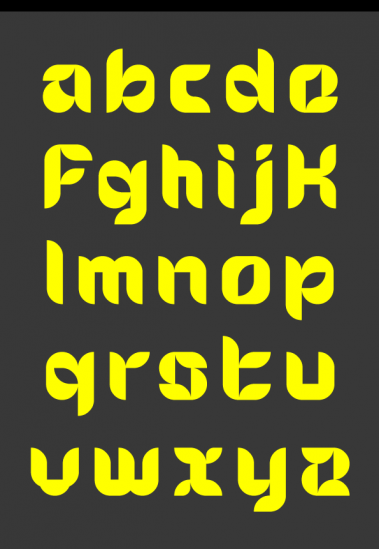
I don't know what's wrong with .png samples: a black line/stripe appears once uploaded.
@igorrossi:
Well, imo it's looking more stylish ;].
Only 8 (four stars) for font, because of 26 characters... You should have made more, maybe digits?
@neoqueto: Or not. I'm not sure yet I want to turn this stylistic composition into a whole font; therefore, I'm not sure either it deserves more than four stars, so thank you for rating & commenting. By the way, don't you think the h is too narrow?
You have some really cool glyphs here. I love the 'a' and that 's' is awesome.
I think the 'h' is fine, but the 'k' seems too big to my eye.
@aphoria: thanks for your nice comment. I changed the width of the f, k and t. Tell me if it feels inconsistent.
Yes, with the transformations it is better proportionned, maybe the h is not as wide as it should be
The f, k, and t are all much better now.
What about using the n as a base for the h?
@aphoria: I implemented your solution for the h.
Usefull font, for letter heads and much more. specially for tea brands.